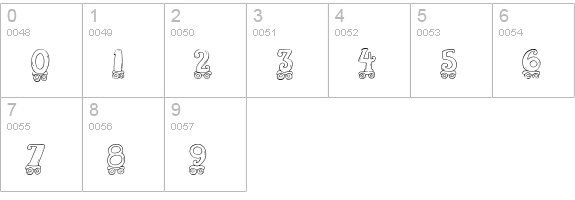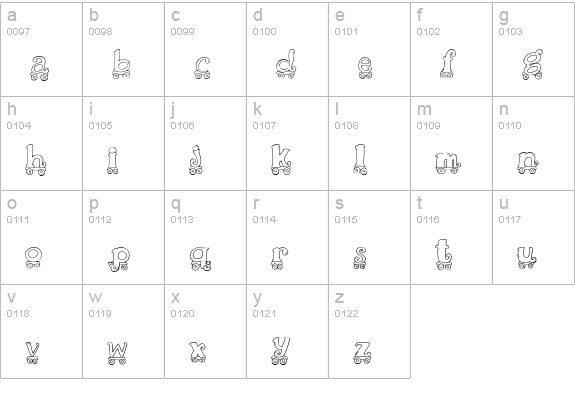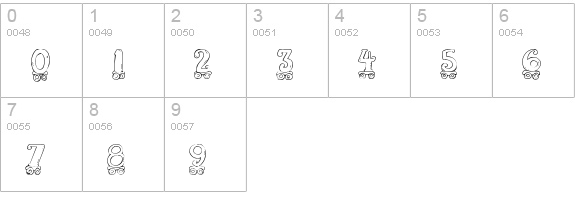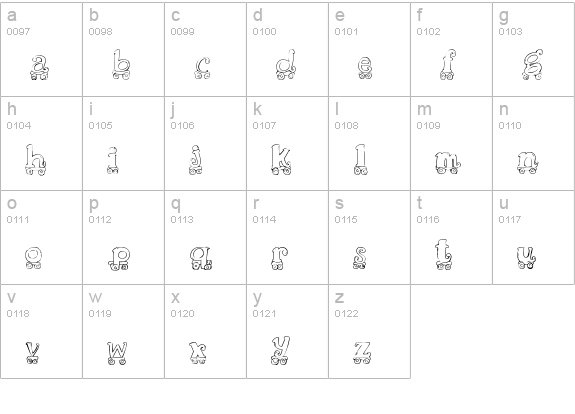
CK Wheelin' Font Details
Introducing CK Wheelin' font - a versatile and stylish typeface that brings a touch of elegance and sophistication to any design project. With its unique blend of modern and classic elements, this font is perfect for creating eye-catching headlines, logos, signage, and more. What sets CK Wheelin' font apart is its seamless combination of sleek lines and bold strokes, creating a harmonious balance that is both captivating and easy to read. Whether you're designing a website, poster, or packaging, this font will effortlessly elevate your visuals and leave a lasting impression on your audience. Best of all, CK Wheelin' font is available for free download at FontsMarket.com, making it accessible to designers of all skill levels. So why wait? Add a touch of sophistication to your next project with CK Wheelin' font today!